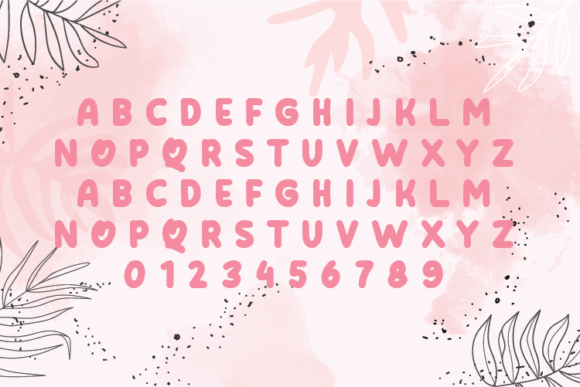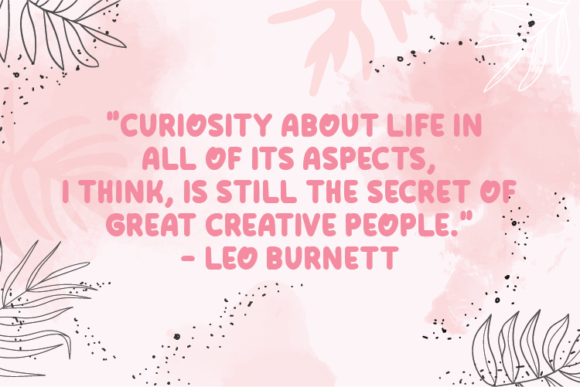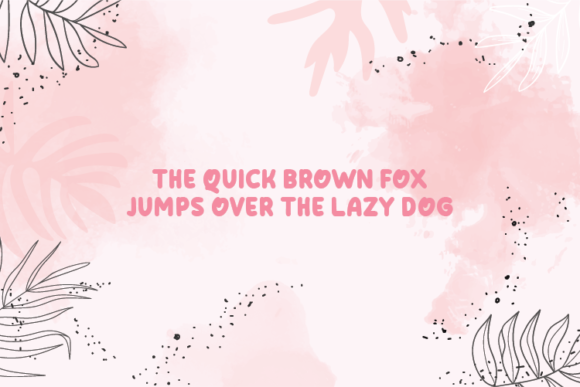
Introduction to Pinky Almond Font
Have you ever found yourself doodling in the margins of a notebook, lost in a world of creativity and imagination? For designers, those moments of freedom and expression are what drive us to push the boundaries of what’s possible. And that’s exactly what makes the Pinky Almond Font so special – it’s a natural handwritten font that captures the essence of those carefree moments and brings them to life in a high-quality, design-friendly format.
Whether you’re working on a creative project or simply need a unique design resource, the Pinky Almond Font is a valuable addition to your toolkit. With its transparent background and free download option, you can easily integrate it into your designs and take them to the next level. From quotes and notes to tees and product designs, this font is the perfect fit for any project that requires a touch of personality and whimsy.
Key Features of Pinky Almond Font
- High-quality design resource ideal for creative projects, with a unique and playful style.
- Unique characteristics include its whimsical and elegant style, making it perfect for creative projects, such as invitations, posters, and branding materials.
Honest Review: Pinky Almond Font
I recently stumbled upon the Pinky Almond Font, and I’m excited to share my thoughts with fellow designers. As a designer myself, I appreciate high-quality fonts that can elevate a creative project. The Pinky Almond Font is a fantastic design resource that offers a lot of potential.
- ✨ Unique design: The font’s playful and whimsical feel makes it perfect for projects that require a touch of personality.
- ✨ Versatile: The font comes in a range of weights and styles, making it suitable for various design applications.
However, I do have a few limitations to mention: ⚠️ the font may not be suitable for projects that require a more formal or professional tone, and the transparent background may not be compatible with all design software.
Overall, I’m impressed with the Pinky Almond Font’s creativity and versatility. It’s a great addition to any designer’s toolkit, especially for projects that require a playful and eye-catching touch. While it may not be perfect for every project, it’s definitely worth considering for your next design challenge.